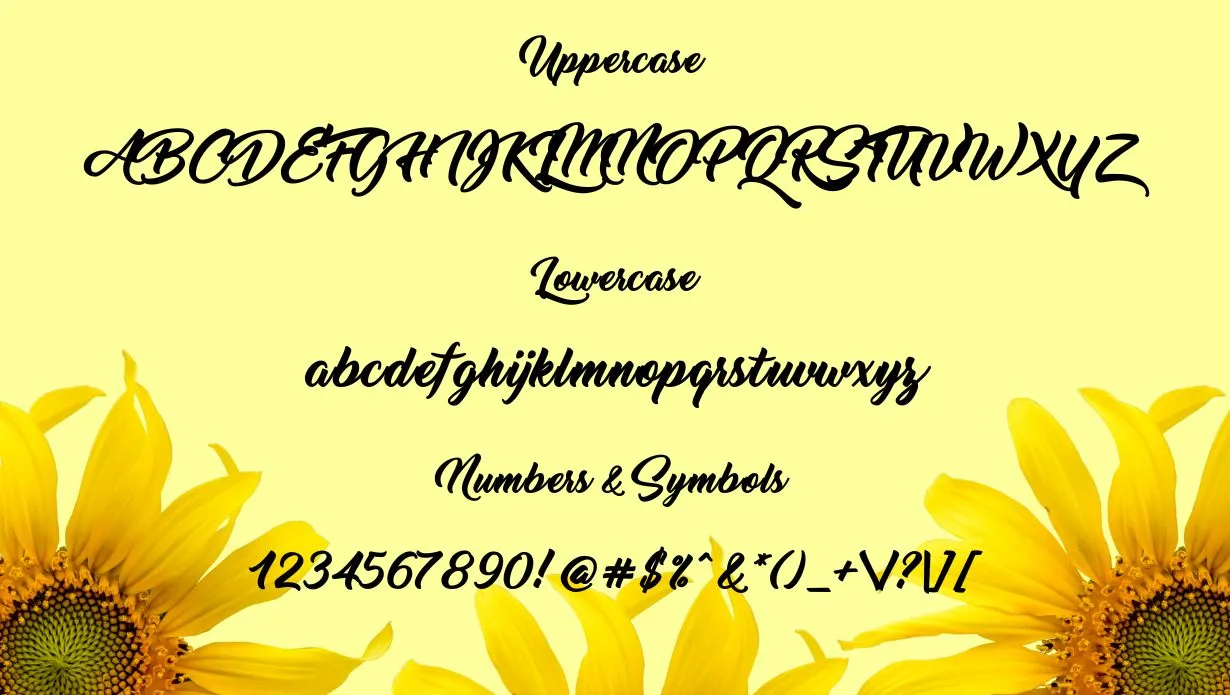
Here we talk about brush typeface Thinking of Betty Font. This beautiful font was designed by Clement Nicolle in 2016. The look of this font is very attractive and you can make eye-catching logos for coffee shops, different brands, restaurants, book covers, fashion magazines, and much more.
It has a full character set such as small letters, capital letters, numbers, symbols, punctuation, and special characters which is perfect for both personal and commercial projects.
It has 237 characters, 242 glyphs, and 1000 units per Em. The font’s weight is Semi-Bold and its width is medium (normal). It supports file foramts TTF and OTF.